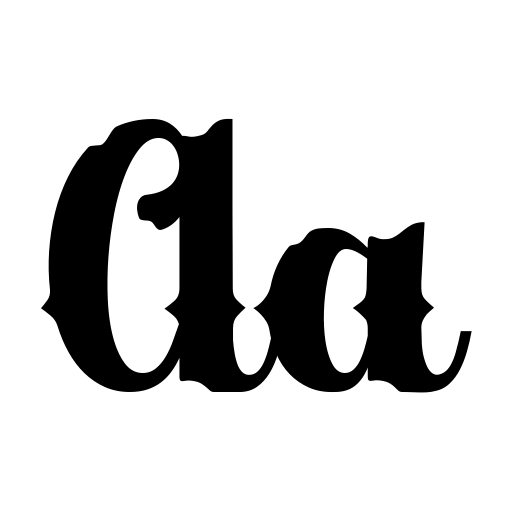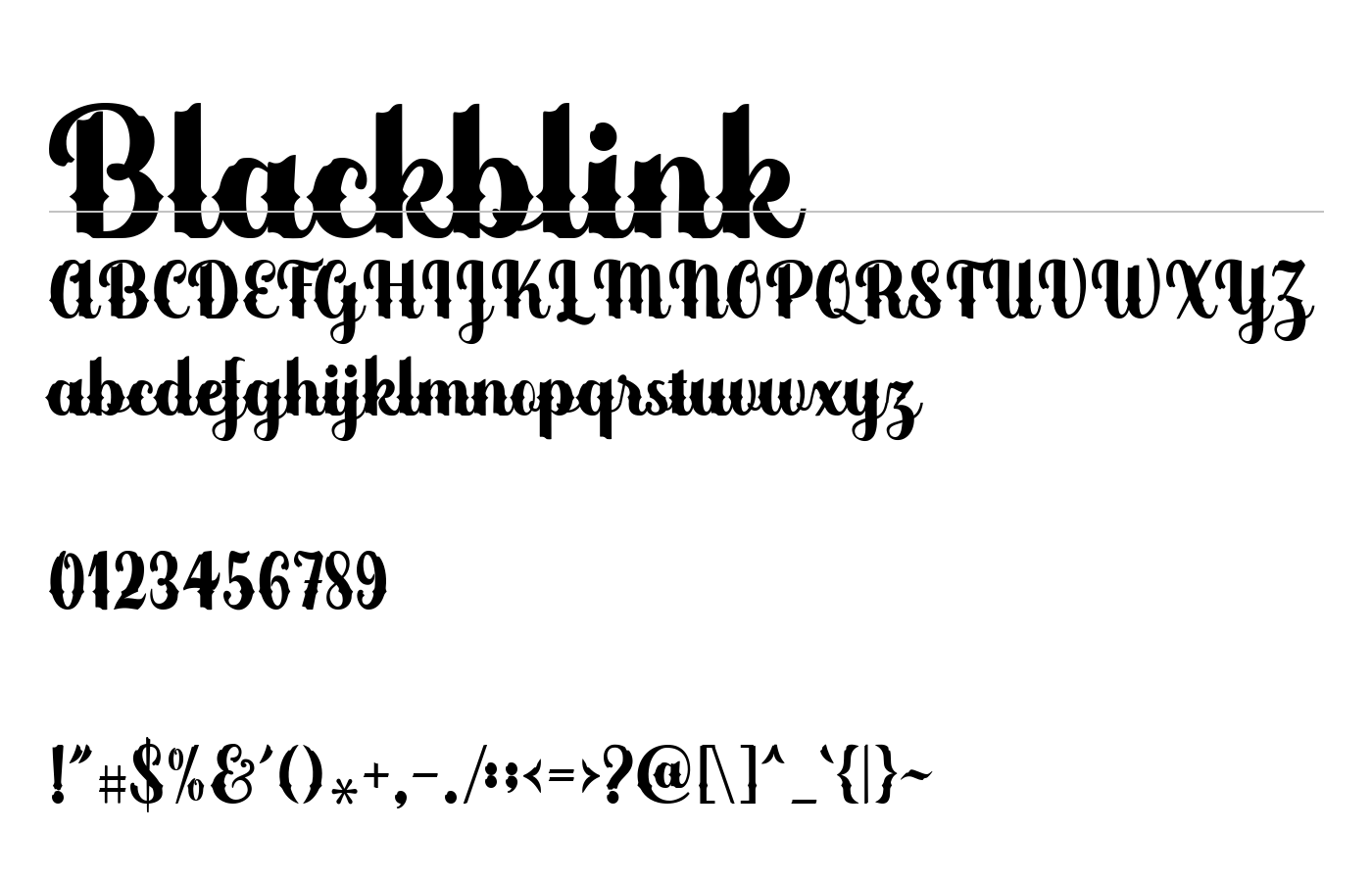
Blackblink is a bold, decorative serif font with a vintage and dramatic flair, featuring thick strokes and elegant, bracketed serifs that give it a strong presence. Its high contrast and distinctive letterforms make it perfect for eye-catching headlines, logos, and branding that aim to convey a sense of nostalgia and bold style. This font works best in display settings where its unique character can shine without overwhelming longer text.
Blackblink Font
About Blackblink Font